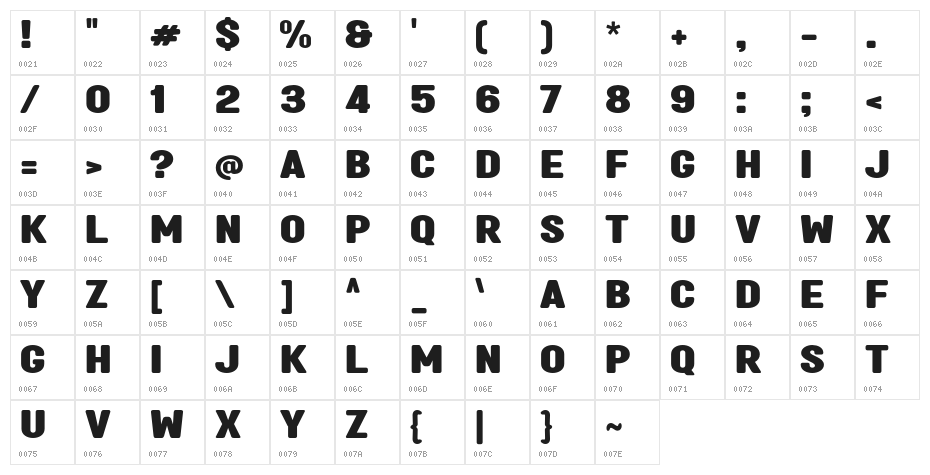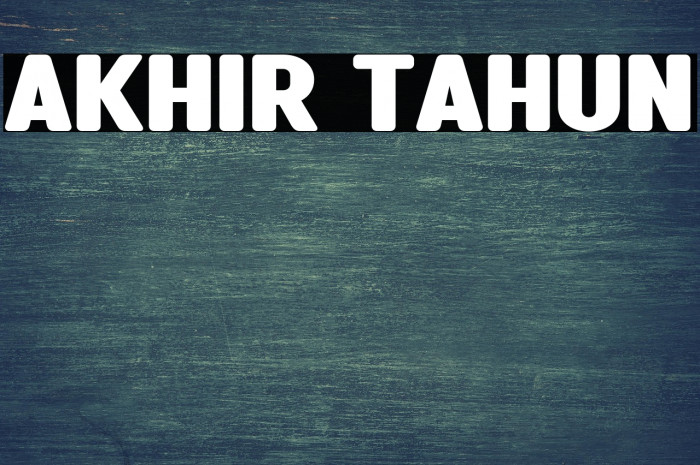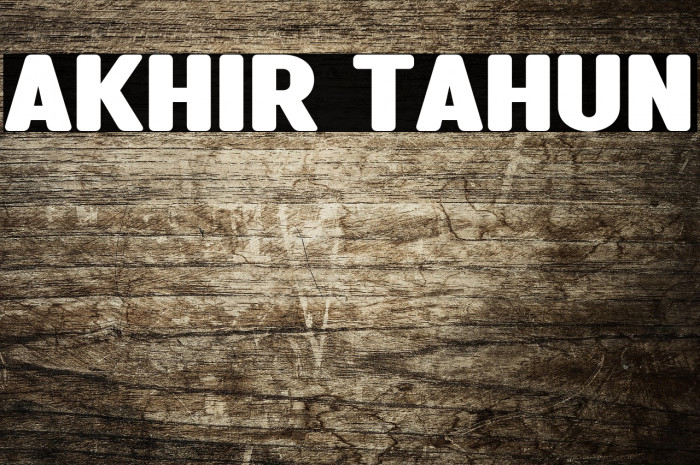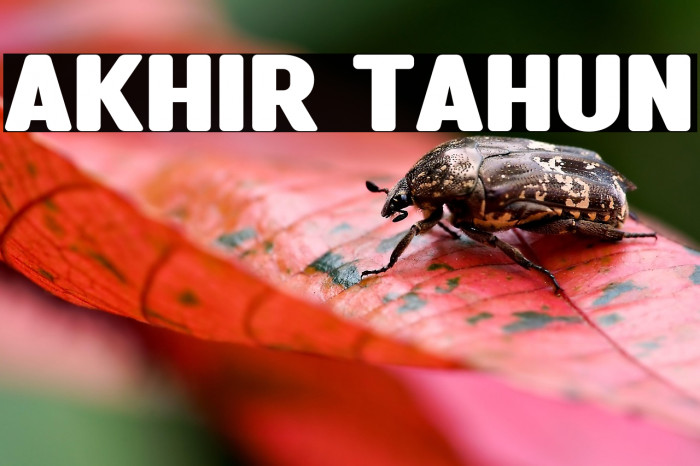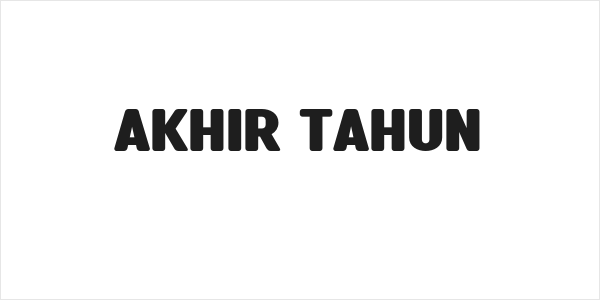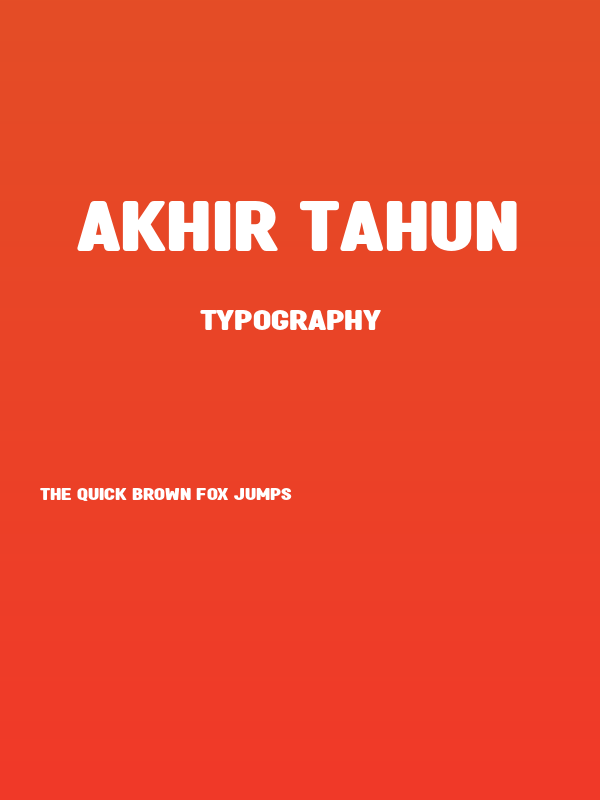
Akhir Tahun Font
Akhir Tahun Description
This font features bold, rounded characters with a strong presence, making it ideal for impactful headlines and attention-grabbing designs. The uppercase letters are uniform in height, while the lowercase letters maintain a consistent style, ensuring readability. The numbers and special characters are equally bold, complementing the overall aesthetic. The font's rounded edges give it a friendly and approachable feel, while the boldness adds a sense of authority and confidence. Its design is versatile, suitable for both digital and print media, and can be used in various contexts where a strong visual impact is desired.
| Proposed Projects | Perfect for branding, advertising, posters, and any project requiring a strong visual impact. |